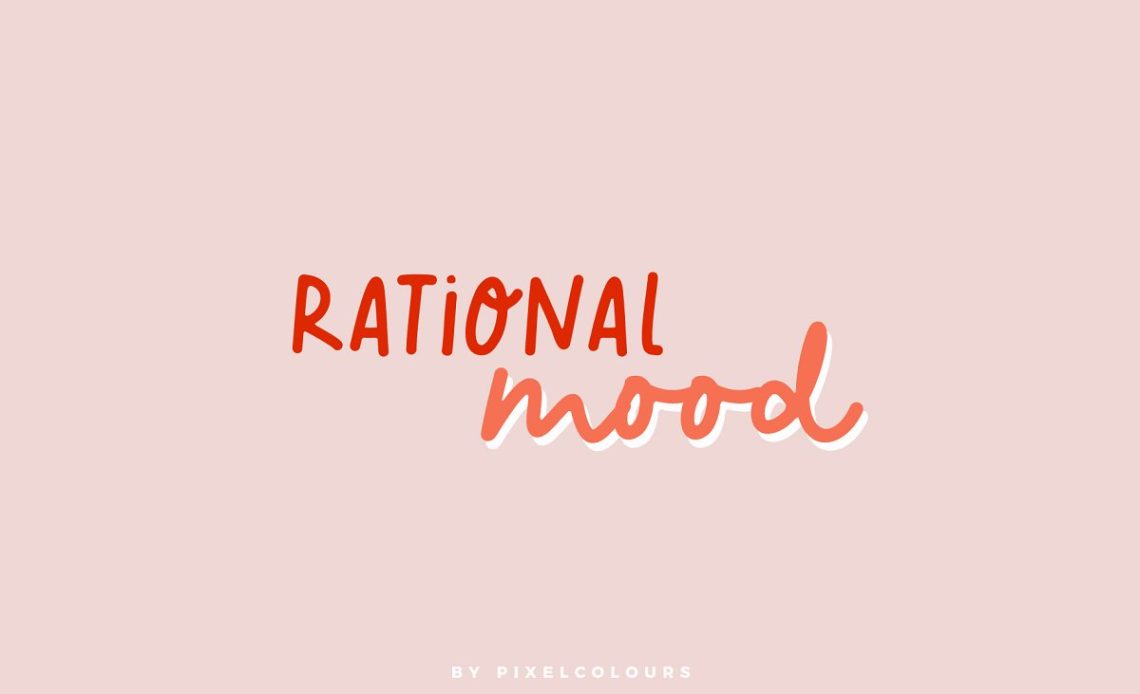
Introducing the captivating and versatile Script Font Rational Mood! Created by the talented team at Pixel Colours, this font trio is a must-have for anyone looking to elevate their designs and make a lasting impression.
With its beautiful uppercase font, Rational Mood Regular, you'll be able to create stunning headlines and titles that demand attention. Whether you're designing a logo, a poster, or even a book cover, this font will add a touch of elegance and sophistication to your project.
But that's not all - Rational Mood Script takes your creativity to the next level. Its flowing and graceful strokes mimic the art of handwriting, giving your designs a personal and intimate touch. Perfect for invitations, greeting cards, or any project that requires a heartfelt message, this script font is sure to leave a lasting impression.
And let's not forget about Rational Mood Extras, the dingbats font that adds a sprinkle of charm and whimsy to your designs. With a wide range of illustrations and decorative elements, you'll have endless possibilities to create eye-catching graphics and embellish your projects.
Not only does Rational Mood offer a variety of fonts, but it also includes uppercase, lowercase, numbers, and punctuation, giving you all the tools you need to bring your vision to life. Plus, with its language support, you can reach a global audience and connect with people from all around the world.
But don't just take our word for it - see for yourself! Check out the stunning examples of Rational Mood in action and get inspired by the possibilities. Whether you're a professional designer or a DIY enthusiast, this font collection is a game-changer.